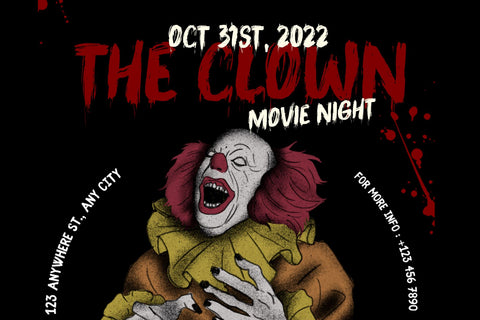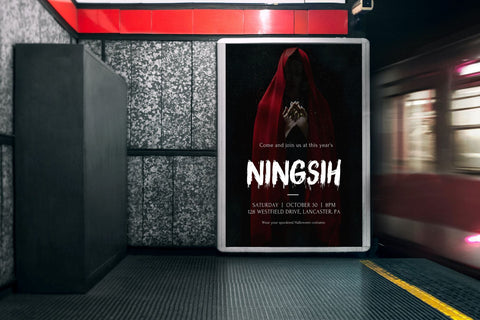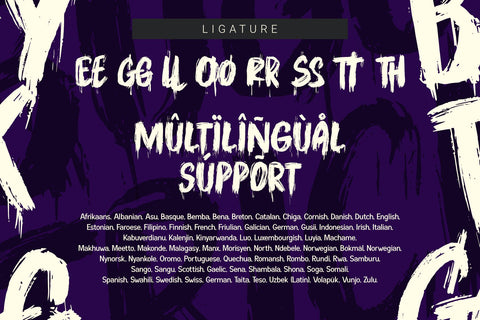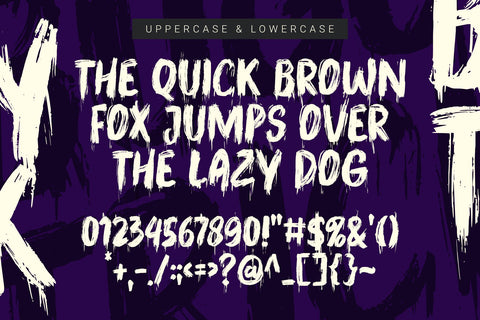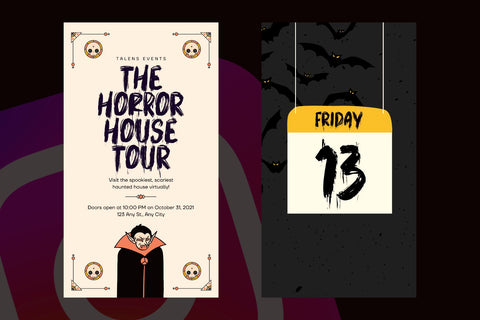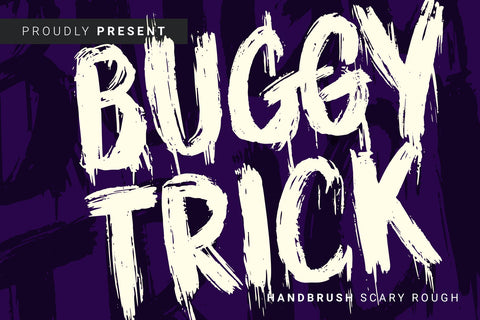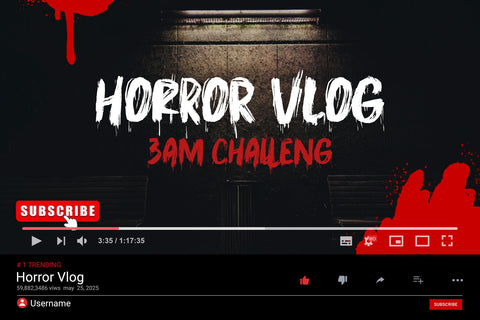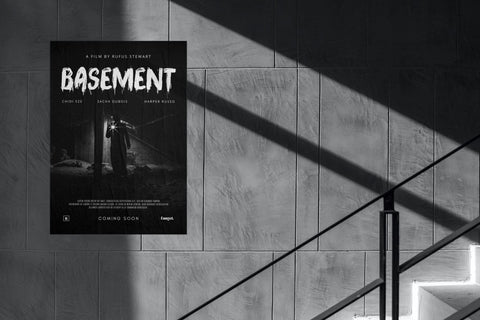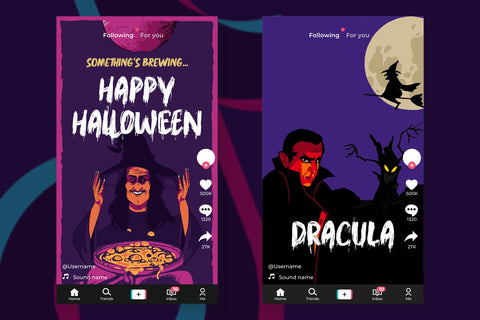
Buggy Trick - Halloween
Buggy Trick is a font for celebrating Halloween. will look good this font is perfect to use as a new font in your projects in graphic design.
horror youtube titles, TikTok content titles, Instagram, horror movie posters, and headlines at the Halloween font event will all make your design look cool like the picture above. What are you waiting for? You can start now!
+ Allcaps
+ Multilingual Accent